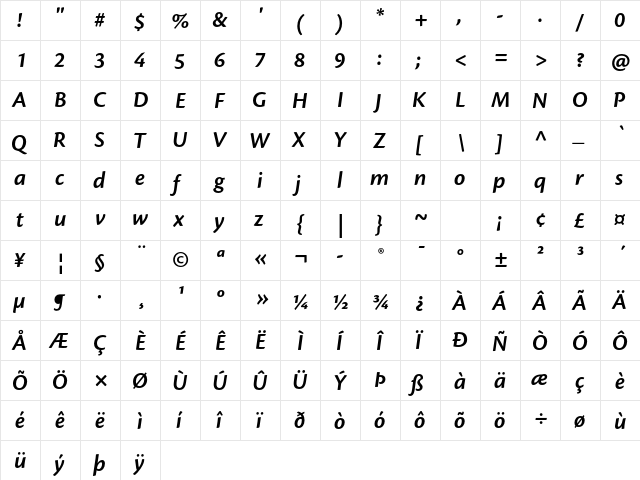
Cronos Pro Semibold Caption Italic Font Preview
| Designer | Robert Slimbach |
Design Context for Cronos Pro Typeface
Cronos Pro takes a measured approach to typography — its balanced proportions and neutral character make it a reliable workhorse for both digital and print work. The dynamic lean of this cut emphasises speed and emphasis in any layout. The heavy weight commands attention and anchors typographic hierarchies.
Pro Tip: Try Cronos Pro for annotation and caption copy alongside an upright companion — the contrast in angle creates a dynamic but ordered typographic system.